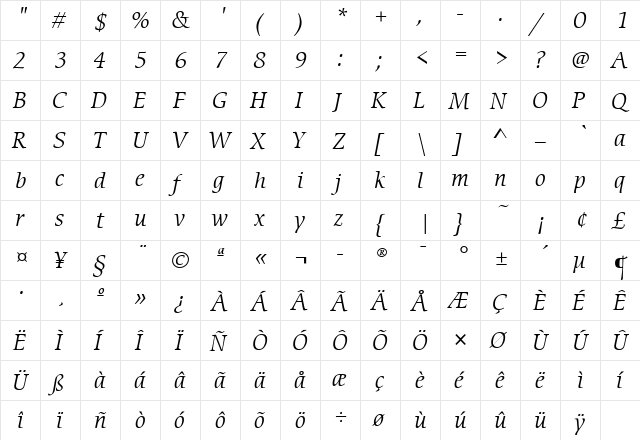
CerigoITC Italic
Design Context for CerigoITC Typeface
CerigoITC offers clean, dependable letterforms without strong stylistic allegiance, making it a practical choice for designers who need flexibility. The slanted form adds forward momentum and visual energy.
Pro Tip: Use CerigoITC for emphasis, pull quotes, and subheadings where its slanted energy can add rhythm to the layout.